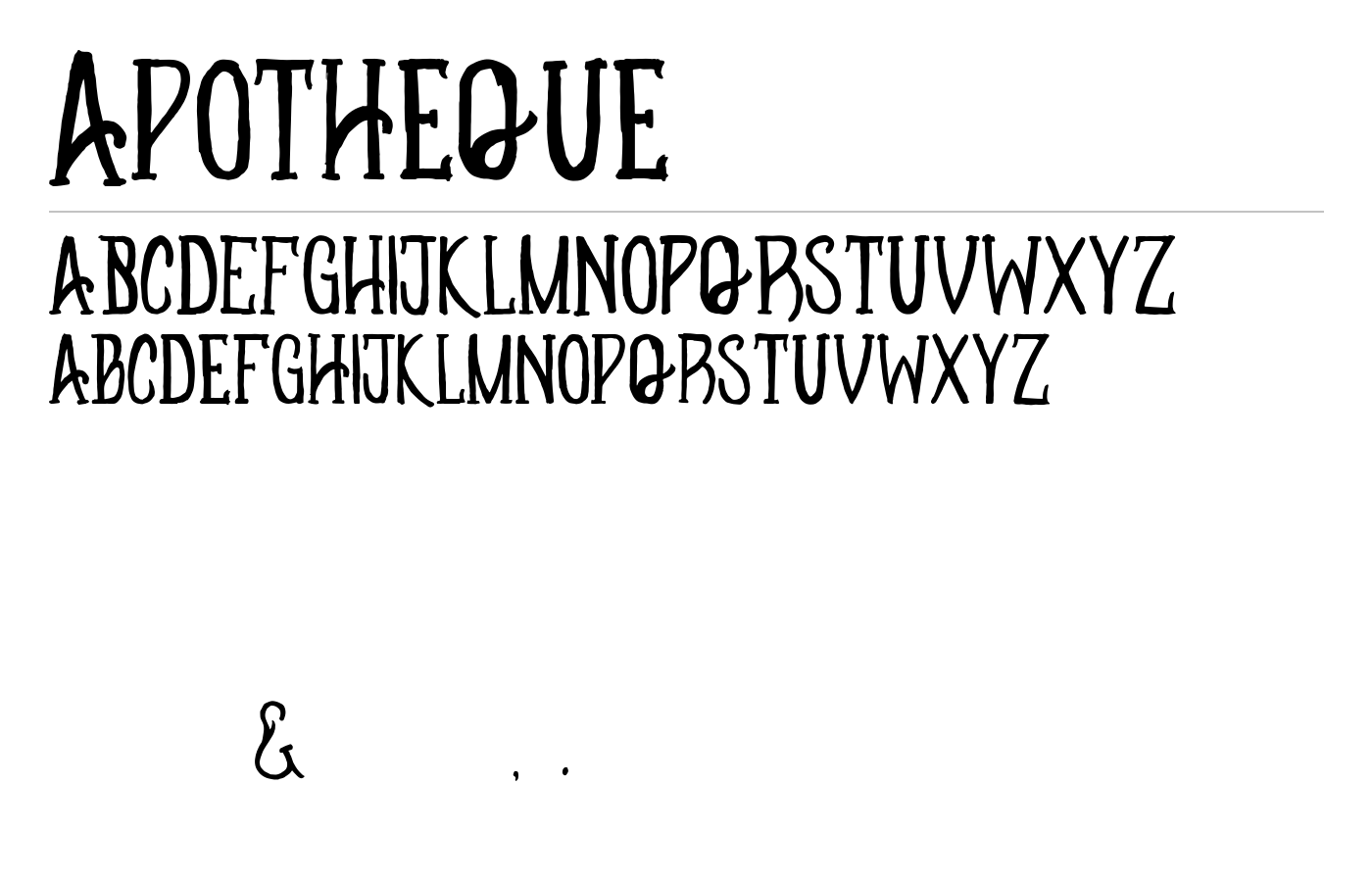
Apotheque is a quirky, narrow serif font with a hand-drawn, slightly whimsical feel, featuring irregular stroke widths and unique letterforms like the crossed Ø and exaggerated curves. Its tall, condensed letters and distinct personality make it a great choice for creative headlines, branding, or projects seeking a vintage, artisanal vibe with a touch of playfulness. This font brings character and charm to designs, standing out in editorial layouts, packaging, or logos that want to express individuality and craft.
Apotheque Font
About Apotheque Font